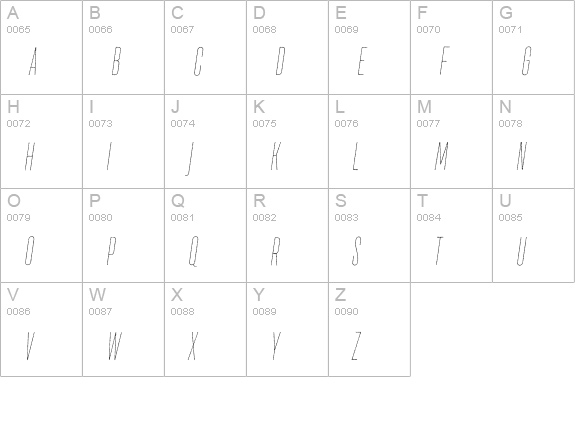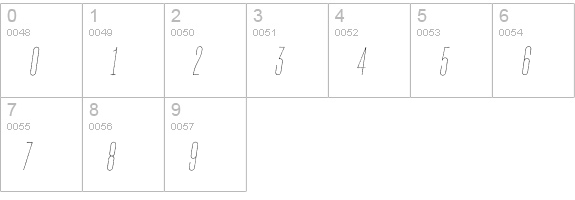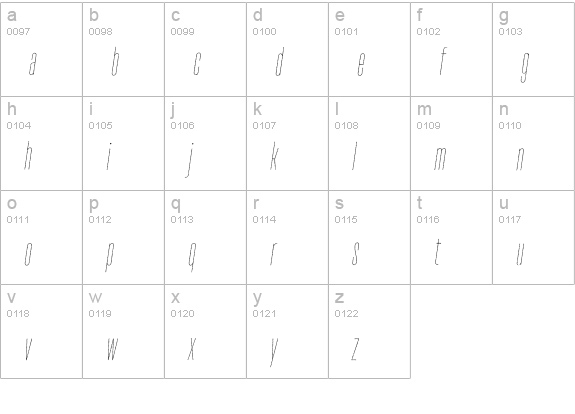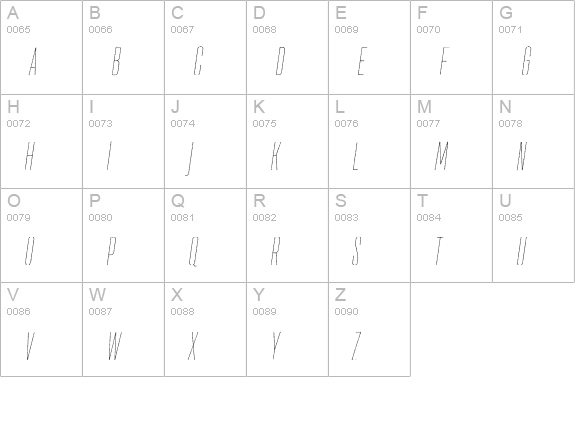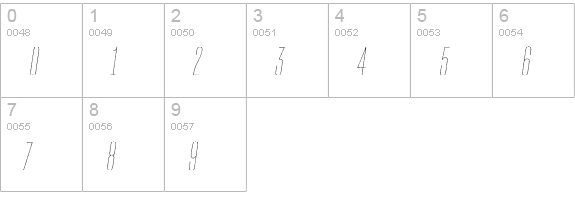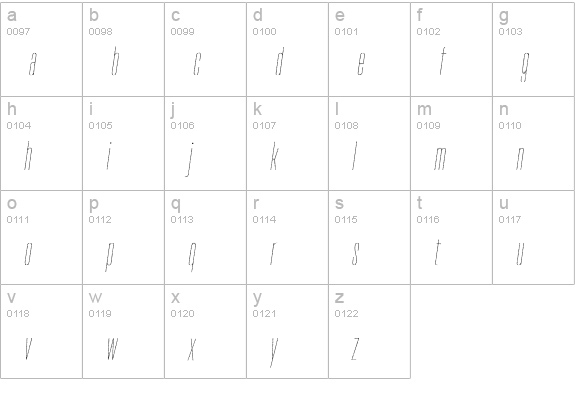
TT Bluescreens Rough Thin Ita is a delicate, low-contrast variant in the TT typeface family \xE2\x80\x94 well suited to fashion editorial, minimal branding, and high-contrast display.
TT Bluescreens Rough Thin Ita font is a unique and edgy typeface that adds a touch of modernity to any design project. With its rough and thin style, this font exudes a sense of energy and creativity, making it perfect for posters, branding, and social media graphics. The italicized characters bring a dynamic and stylish element to the overall look of the text. Best of all, TT Bluescreens Rough Thin Ita font is completely free to download at FontsMarket.com. This means you can easily access and use this eye-catching font in your projects without any cost involved. Don't miss out on the opportunity to elevate your designs with this striking and contemporary typeface. Download TT Bluescreens Rough Thin Ita font today and let your creativity shine!